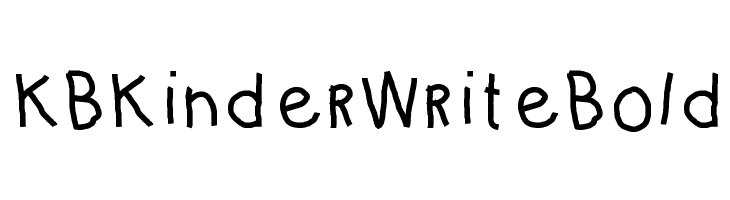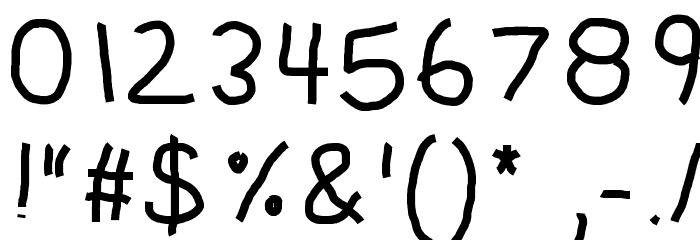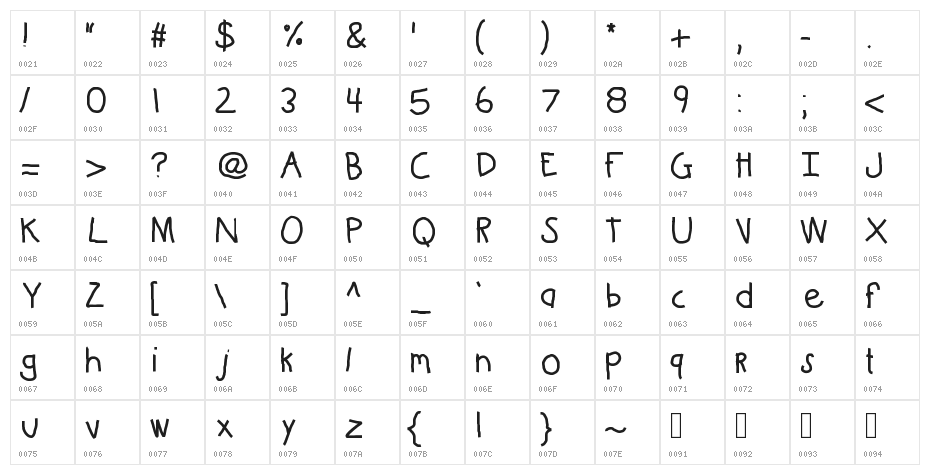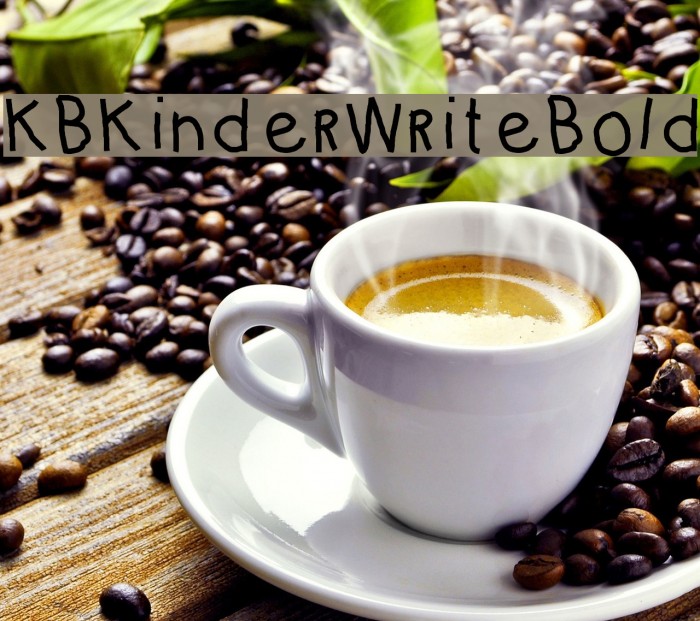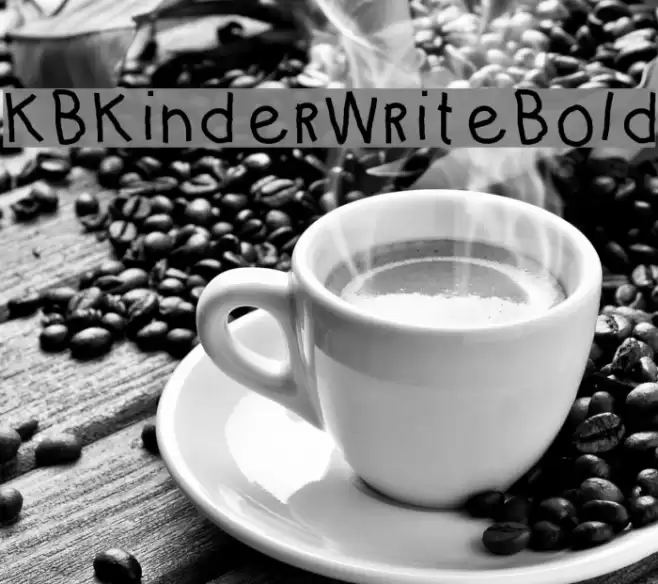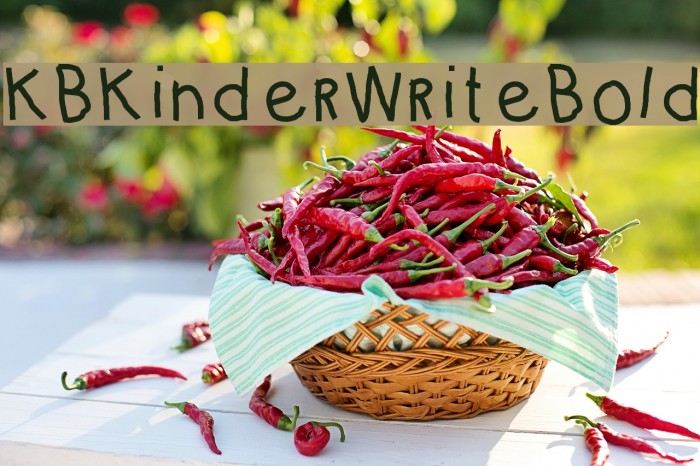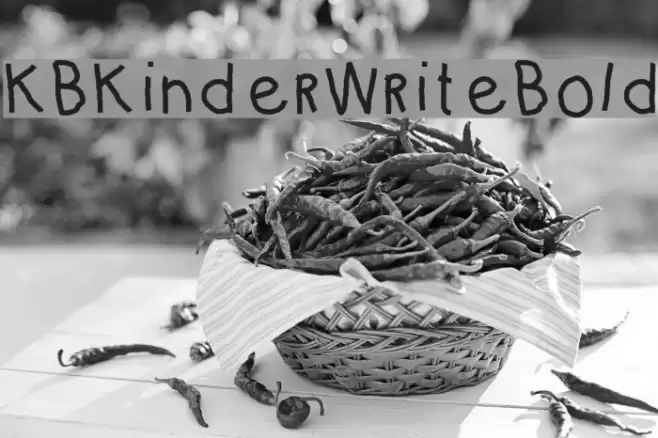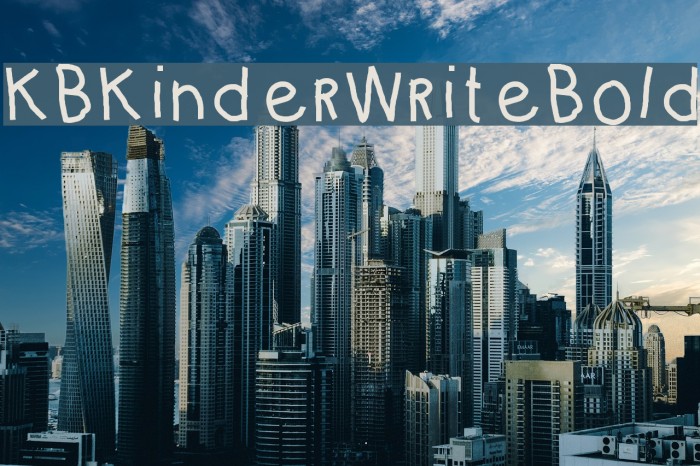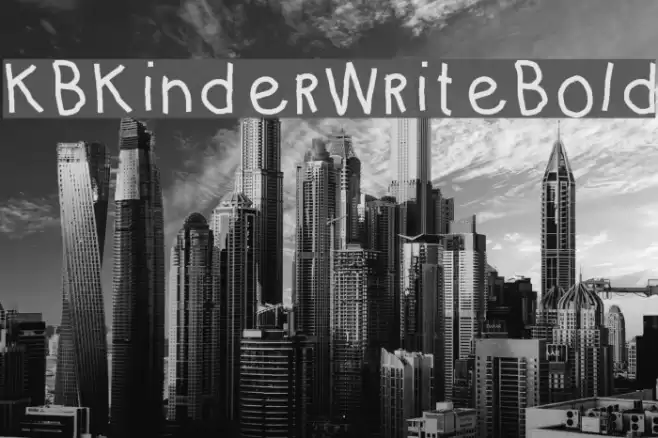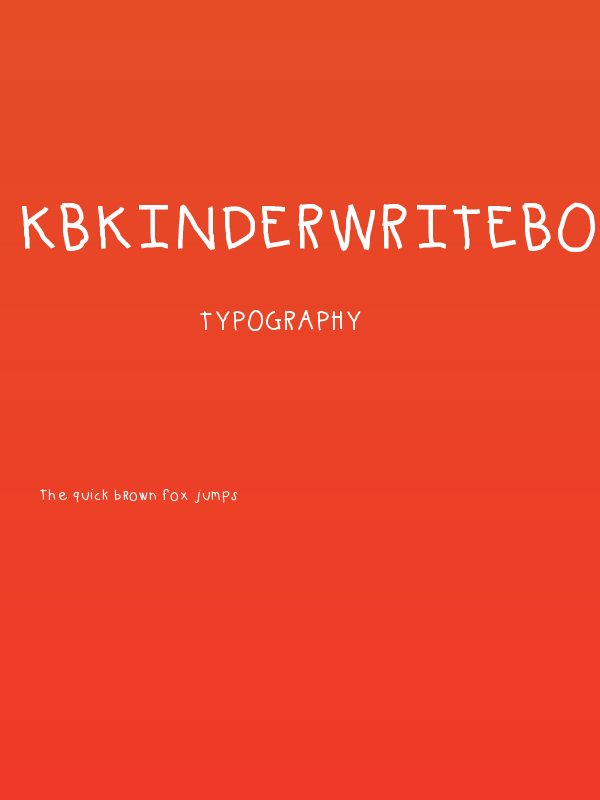
KBKinderWriteBold Font
KBKinderWriteBold Description
This playful and whimsical font features a hand-drawn aesthetic with irregular, slightly wobbly lines that give it a childlike charm. The characters are bold and rounded, with a casual, informal style that evokes a sense of fun and creativity. The uppercase and lowercase letters maintain a consistent style, with a slight tilt and varying stroke thickness that adds to the font's dynamic appearance. The numerals and special characters are equally playful, fitting seamlessly with the overall design. This font is perfect for projects that require a touch of whimsy and personality.
| Use Case | Headlines, Children's materials, Creative projects |
| Proposed Projects | Ideal for children's books, educational materials, playful branding, and creative projects. |